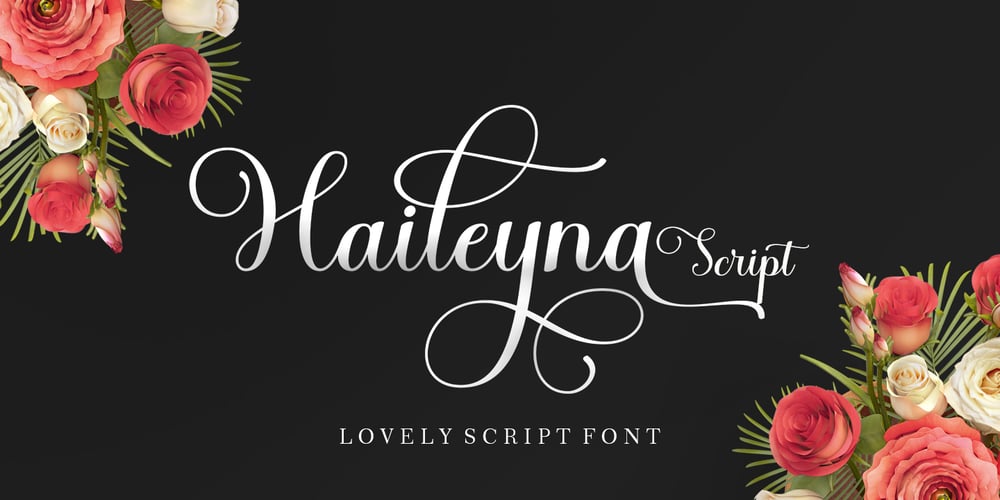
Haileyna Font Family was designed by Romi Rahmadi and published by Romie Creative. Haileyna contains 1 styles and family package options. Haileyna script typeface. Contains a complete set of lowercase, uppercase, alternative, ligatures, punctuation, numbers and multilingual support. Work in sync with Haileyna to create awesome calligraphic creations. You can use it for a variety of purposes: logos, wedding invitations, titles, signatures, t-shirts, letterheads, signage, labels, posters, etc.How to access all alternative characters, using the Windows Character Map with Photoshop:https://www.youtube.com/watch?v=Go9vacoYmBwHow to access all alternative characters using Adobe Illustrator:https://www.youtube.com/watch?v=XzwjMkbB-wQthank you